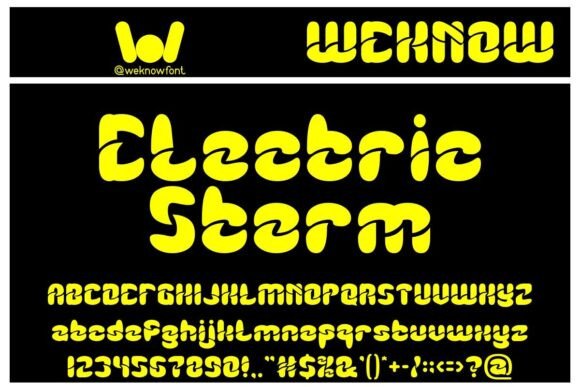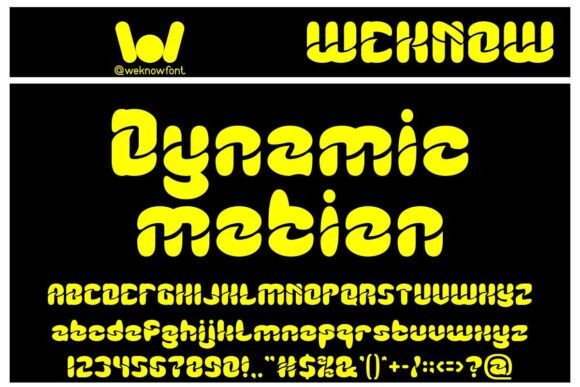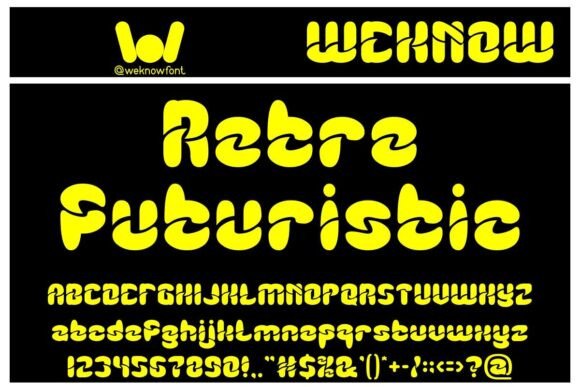
Chasing Lightning Font: A Bold Techno Display for Unique Branding
About the Chasing Lightning Font
Get ready to be inspired by Chasing Lightning Font, a fresh and dynamic typeface for modern creators. Striking the perfect balance of whimsy and sophistication, Chasing Lightning is a techno sci-fi inspired font that effortlessly transforms the mundane to a stylish masterpiece. This fancy display font adapts to various artistic aesthetics, rendering it an excellent choice for a range of purposes. From lending a distinctive edge to your brand’s logo and logotype, to creating arresting headlines that capture attention, this font makes a significant impact. It also adds a genre-targeted charm to your endeavors in the apparel industry, bringing designs to life in a captivating way. Further, its utilization expands to the realm of music, movies, games, and magazines where it truly sets the tone for the content. Whether you’re working on a book, a comic, a cartoon, operating a YouTube channel, an Instagram page, or crafting a website, Chasing Lightning is designed to enhance your creative vision across numerous platforms.
Chasing Lightning Font Usage Examples
Chasing Lightning Font Example